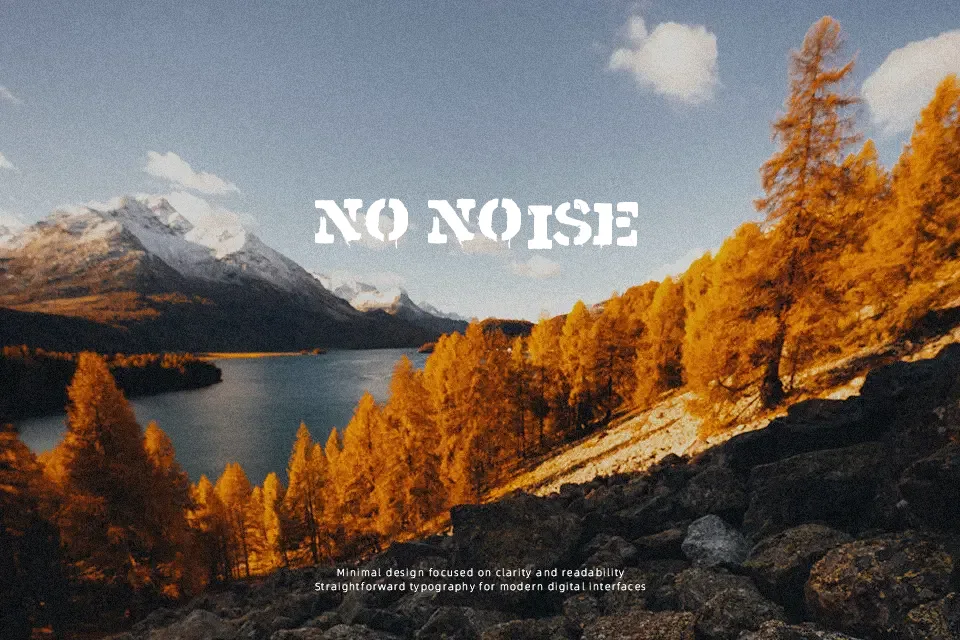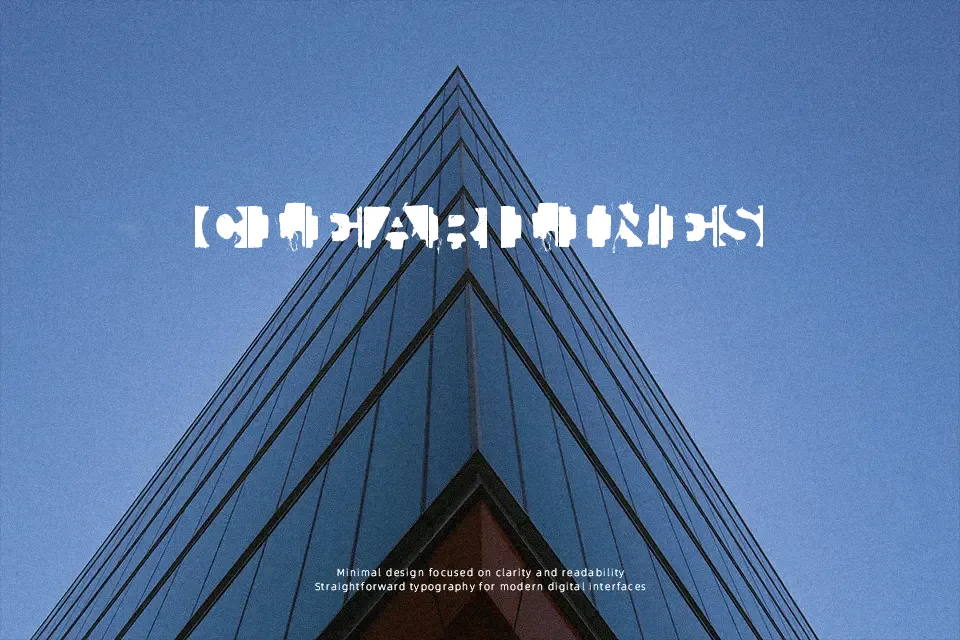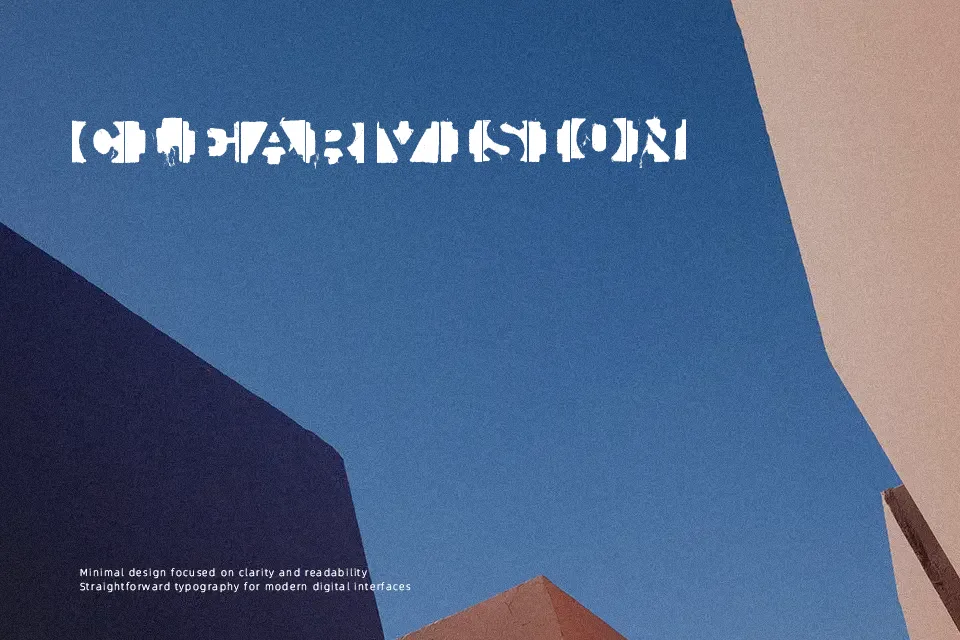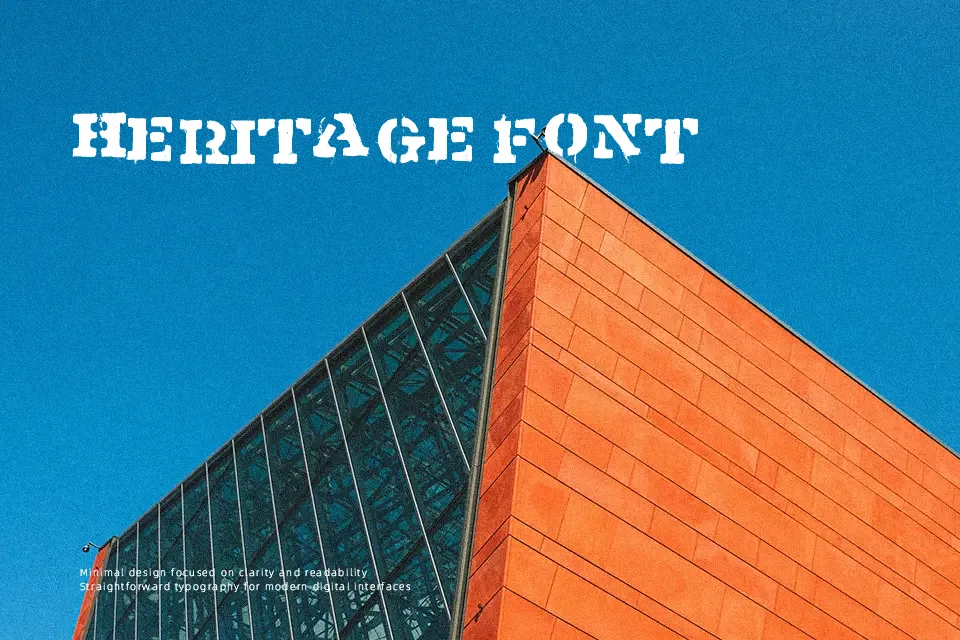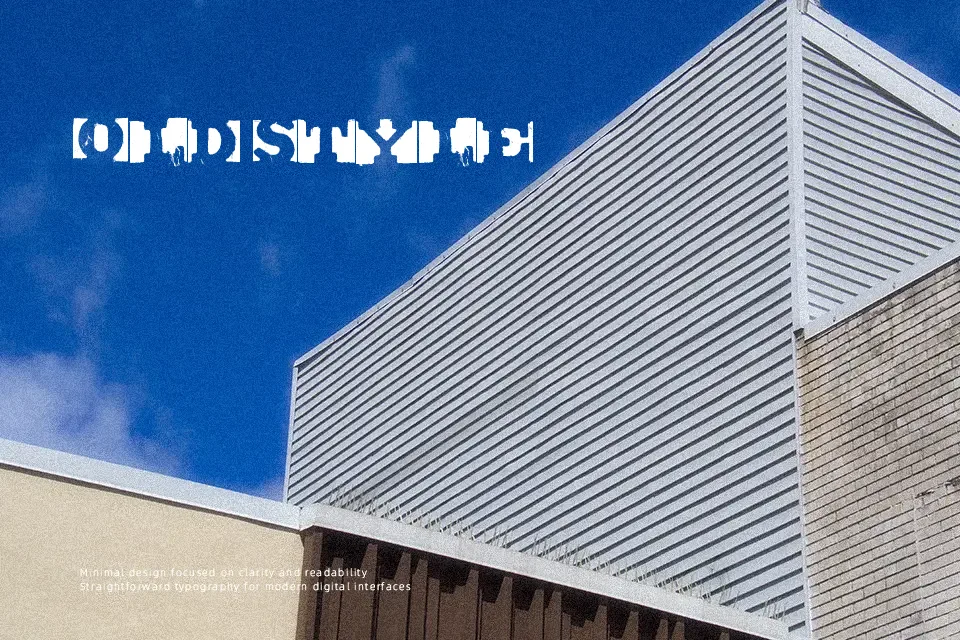
Shipment Font
Shipment Font features solid, heavyweight letterforms constructed with prominent stencil breaks and squared structural corners. The bold strokes maintain consistent thickness throughout uppercase and lowercase forms, creating an imposing presence with balanced letter spacing suited for display settings. Broad character proportions ensure crisp legibility at large scales, making the typeface particularly effective for logistics branding, rugged packaging labels, and industrial signage. However, the dense visual weight and narrow counters make the letterforms less suitable for dense body paragraphs or small text sizes where the cutouts lose definition. For headlines needing a utilitarian, mechanical feel, the design provides reliable graphic impact.
Best For: cargo packaging labels, military poster headlines, industrial product packaging, warehouse safety signage
Not Ideal For: long paragraph text, mobile app body copy, dense editorial layouts, small interface labels